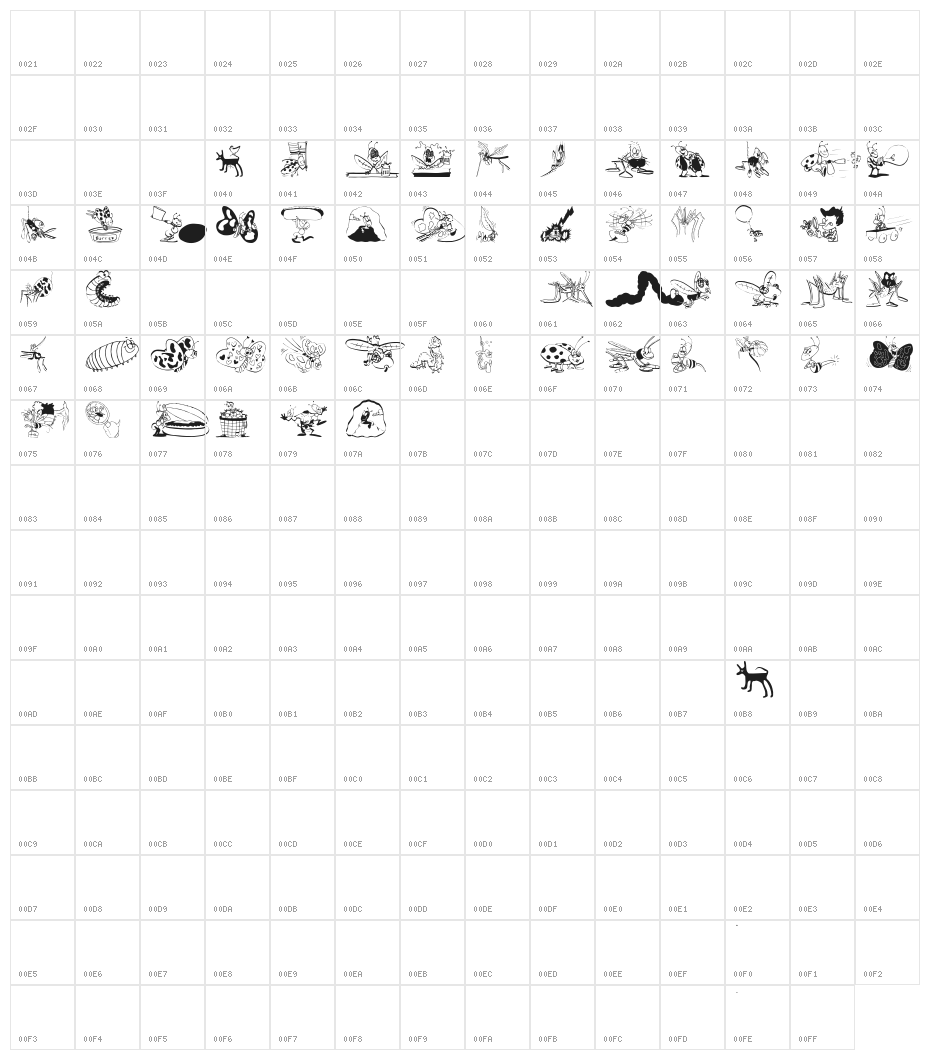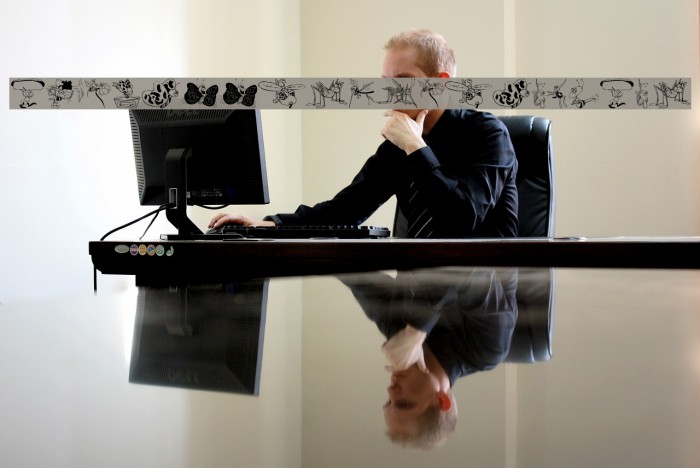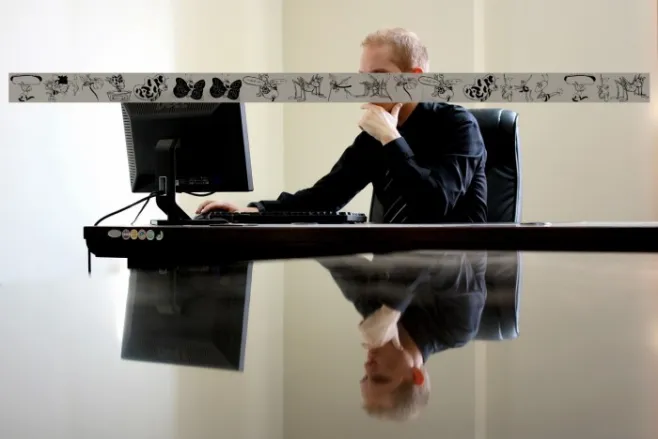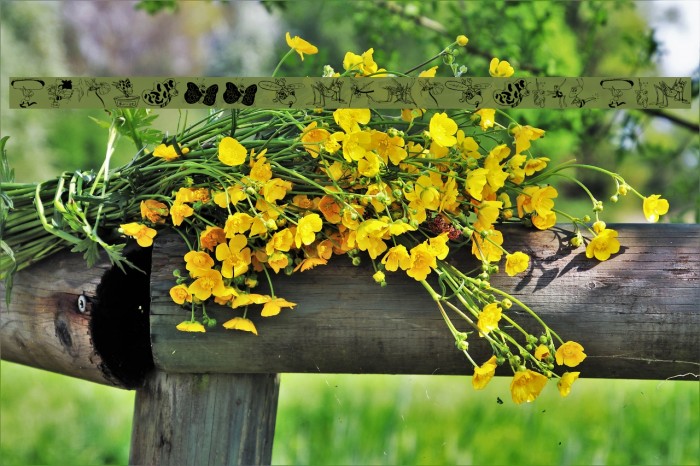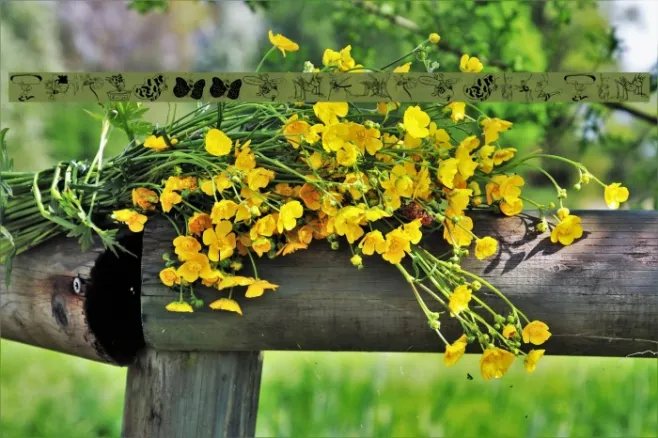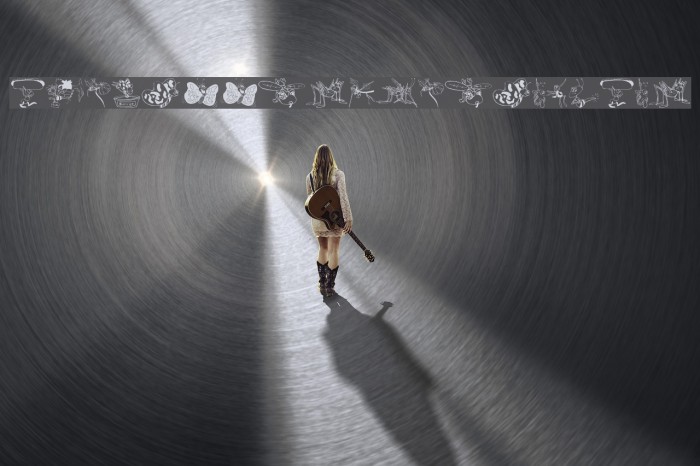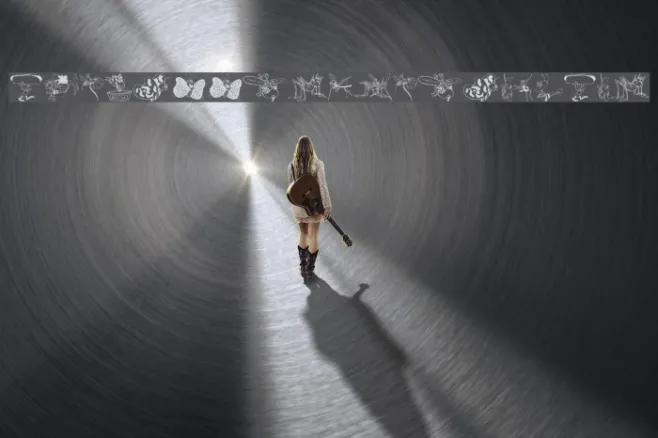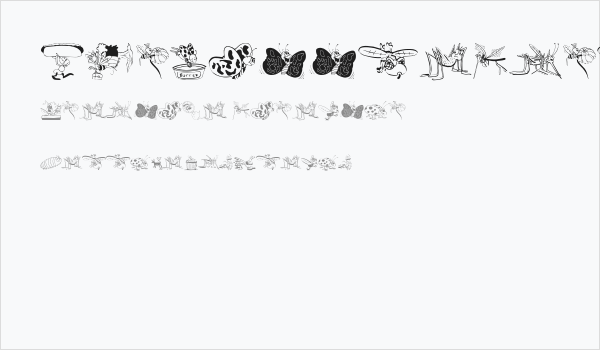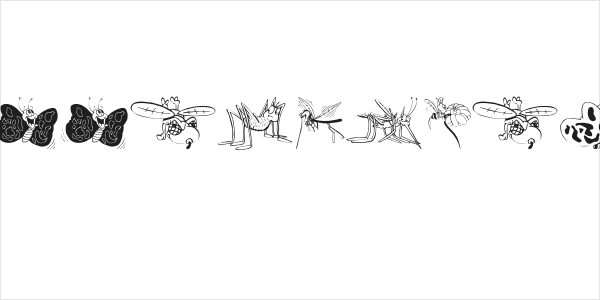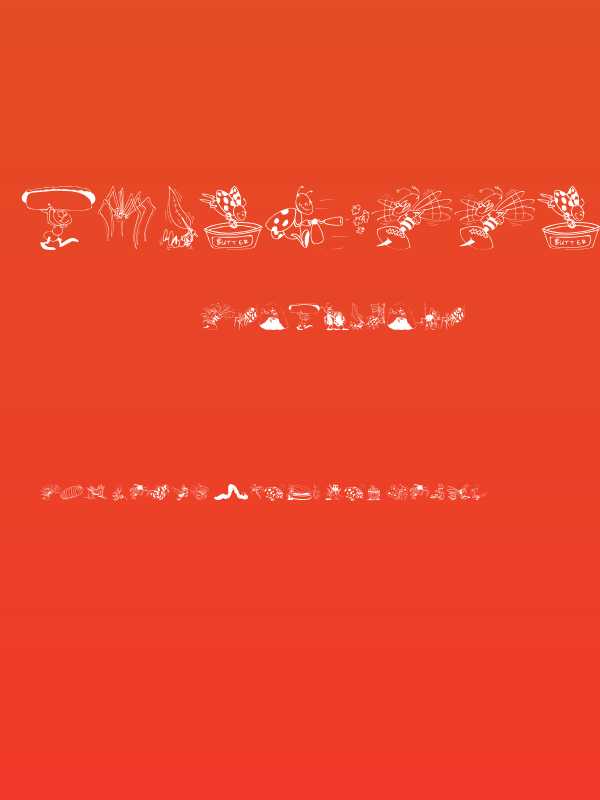
OurLittleDarlings-One Font
OurLittleDarlings-One Description
This font is a whimsical and playful collection of cartoon-style illustrations, each representing a different character or object. The designs are intricate and detailed, featuring a variety of creatures and scenes that evoke a sense of fun and creativity. The characters are expressive, with exaggerated features and dynamic poses, making them ideal for projects that require a touch of humor or lightheartedness. The style is reminiscent of classic animation, with bold outlines and a lively sense of movement. Each illustration is unique, offering a wide range of visual storytelling possibilities.